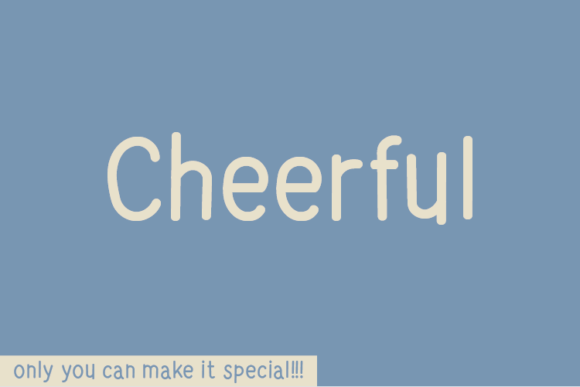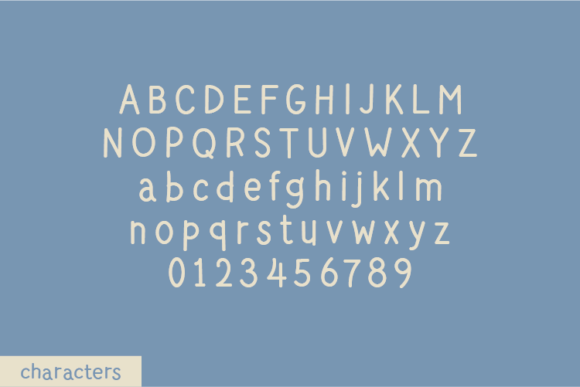
About Cheerful Font
Cheerful Font Download brings you a unique handwritten typeface crafted with precision and originality. What sets it apart is that no single node in each character’s indentation has been altered, giving the font its authentic and natural rhythm. This makes it stand out as both visually interesting and genuinely creative.
Designed to feel natural and personal, Cheerful offers smooth strokes and an organic handwritten look that feels approachable in every use. Whether you’re creating personal notes, stylish apparel, or bold quotes, this font adapts effortlessly.
Key Features of Cheerful Font
Authentic handwritten style with original details
Full character set including uppercase, lowercase, numbers, and punctuation
Natural strokes with no node modifications
Easy to use for both print and digital projects
Where to Use Cheerful Font
Cheerful works beautifully across many types of design, including:
Quotes and notes that need a heartfelt, authentic style
Apparel and tees that call for a handcrafted look
Invitations and greeting cards with a personal touch
Logos, posters, and product packaging for bold creative branding
Social media designs that stand out with originality